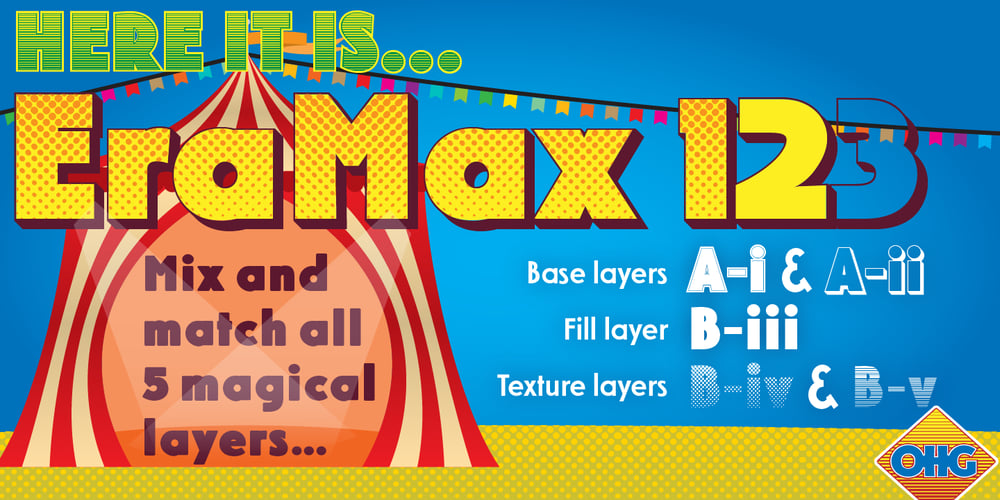
EraMax 123 Font Family was designed by Russell A. McGorman and published by Our House Graphics. EraMax 123 contains 5 styles and family package options. EraMax 123 is a multi-layered display geometric sans serif, meant to be set BIG, for large, colourful statements. It’s the perfect face for packaging, posters & branding, where a strong, colourful voice is needed… Did I mention posters? The “Max” in EraMax comes from the ultra bold weight, but also, and mainly as a tip of the hat to Peter Max, the designer and artist, known for creating so many images which have come to be emblematic of the sixties and seventies. The bold gradient effects in some of his posters were the inspiration behind the dotted and striped layers. This font’s vintage flavour truly stand out in a retro setting, but also has a modern flavour that lends it the flexibility to work well in a more contemporary context. This is the second of what is to be an extended family of typefaces based on the original hand painted signage found in the T. H. & B Railway station in Hamilton Ontario, a classic Art Moderne building, designed by the New York architectural firm of Fellheimer and Wagner for the Toronto Hamilton and Buffalo Railway line and completed in 1933.